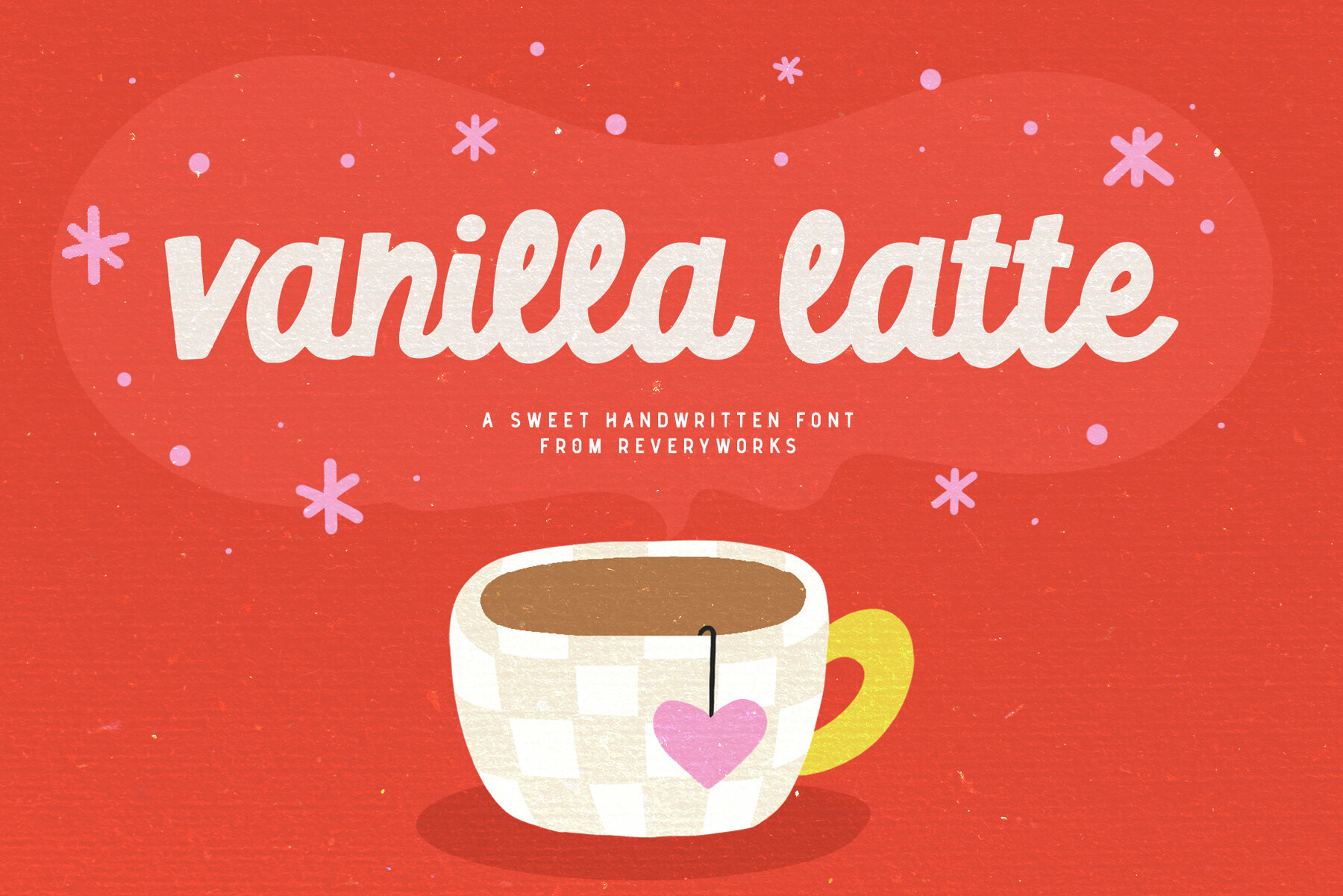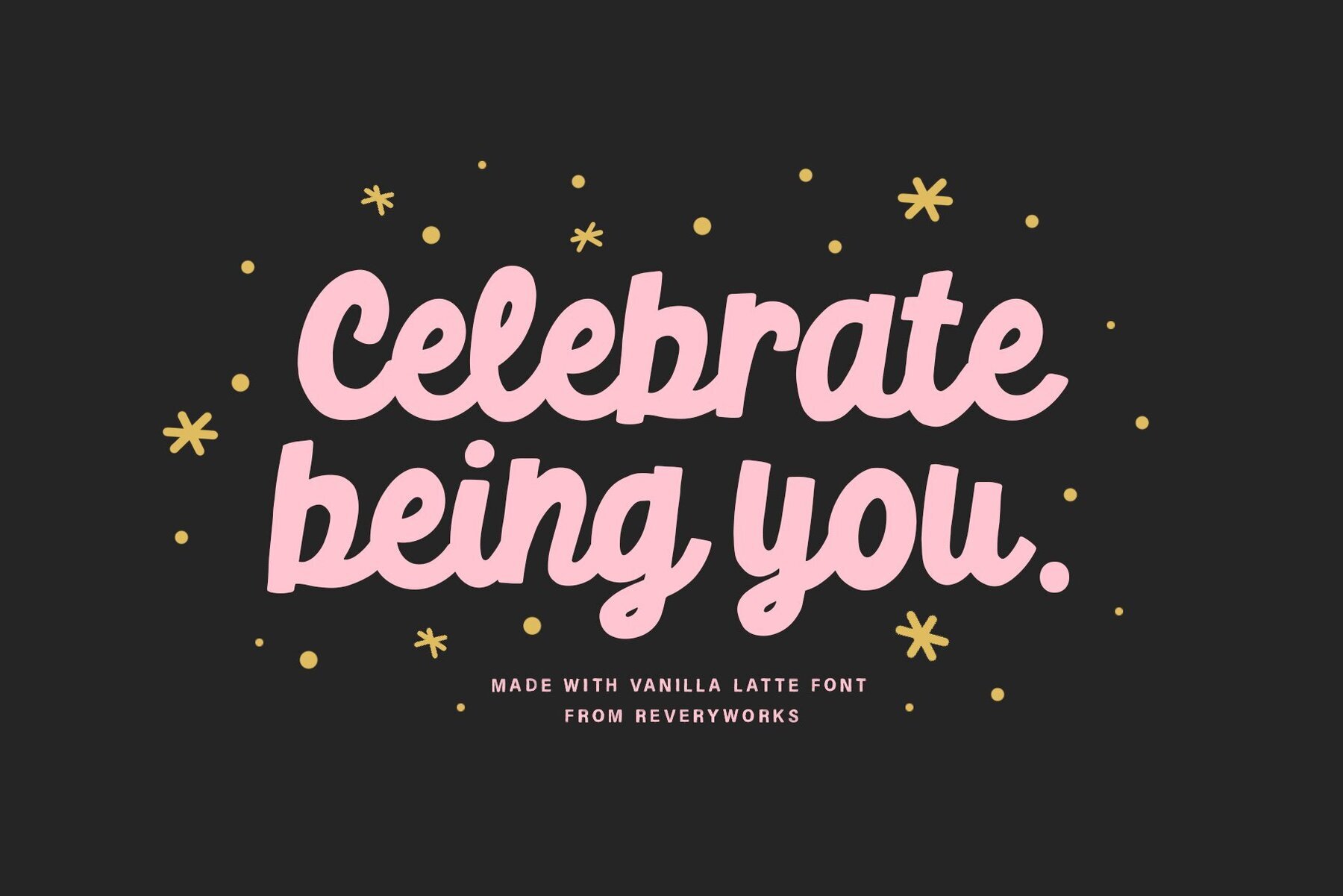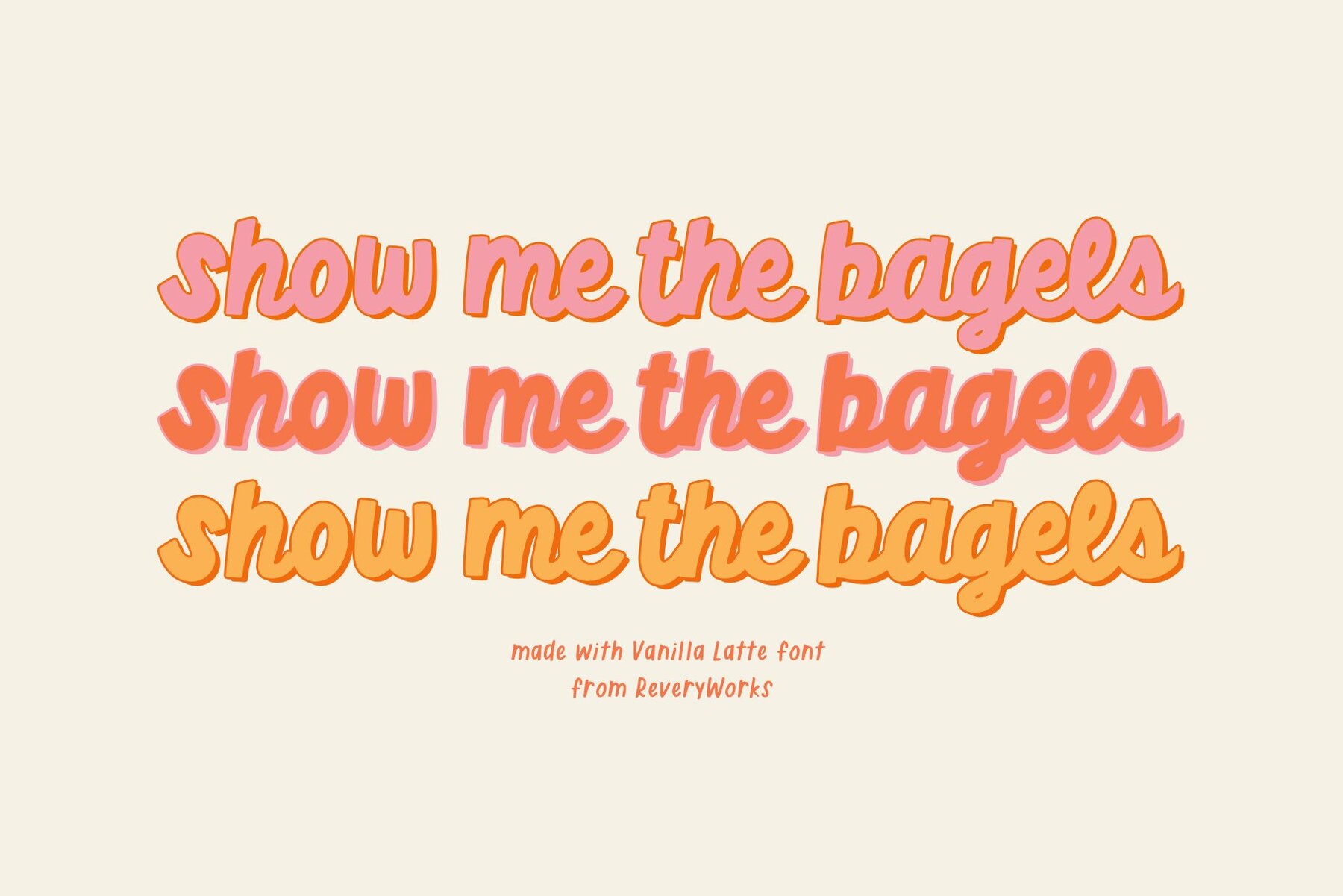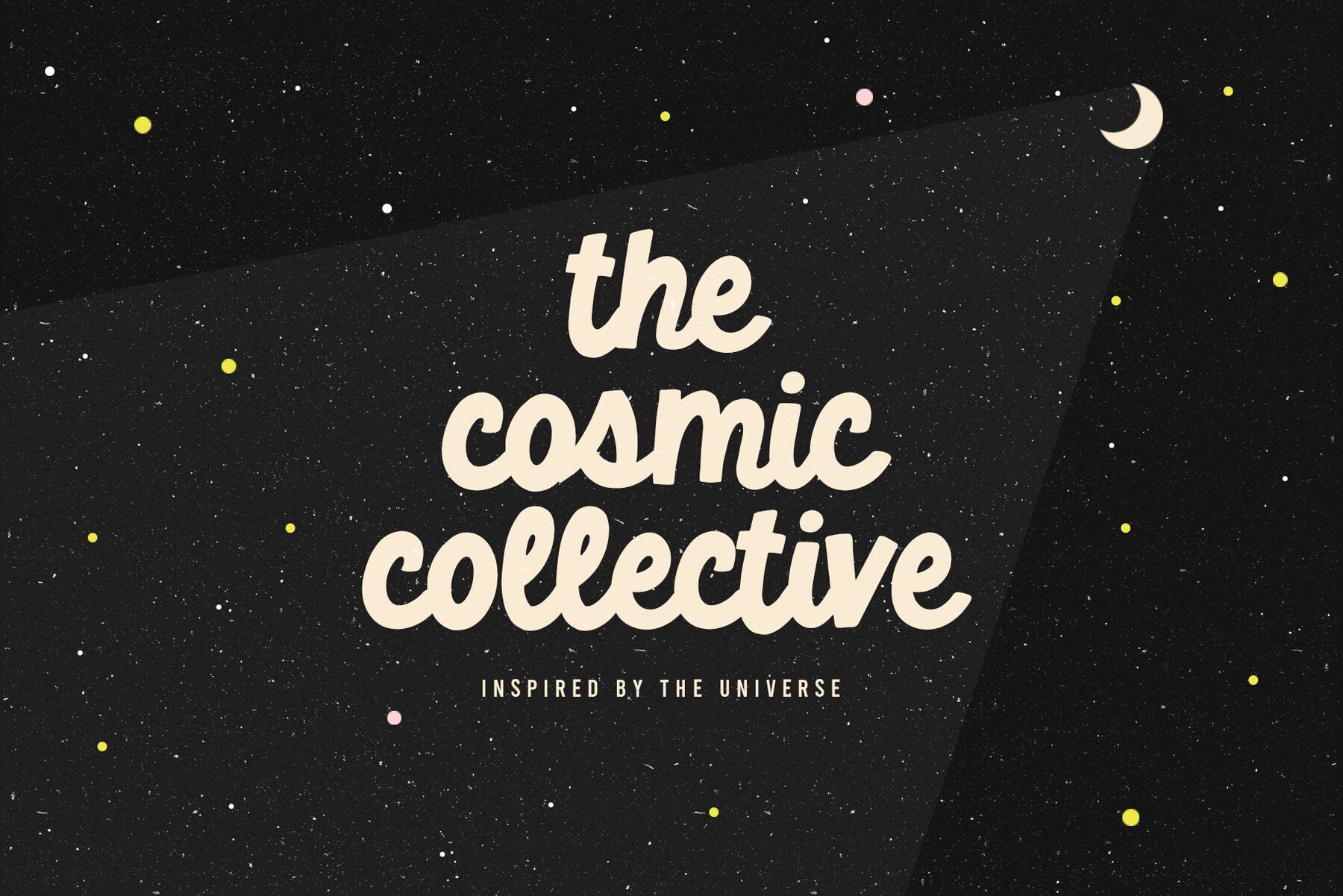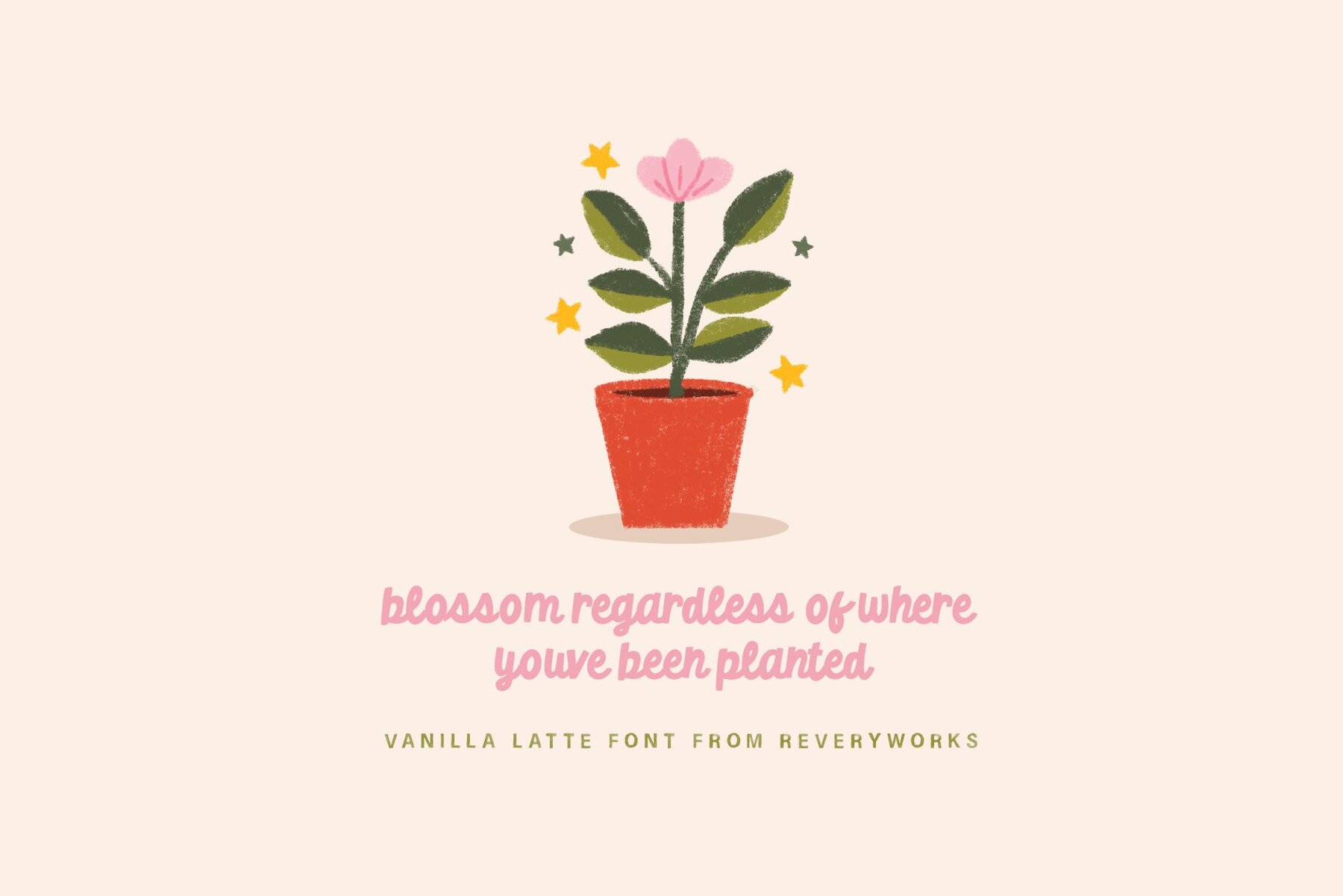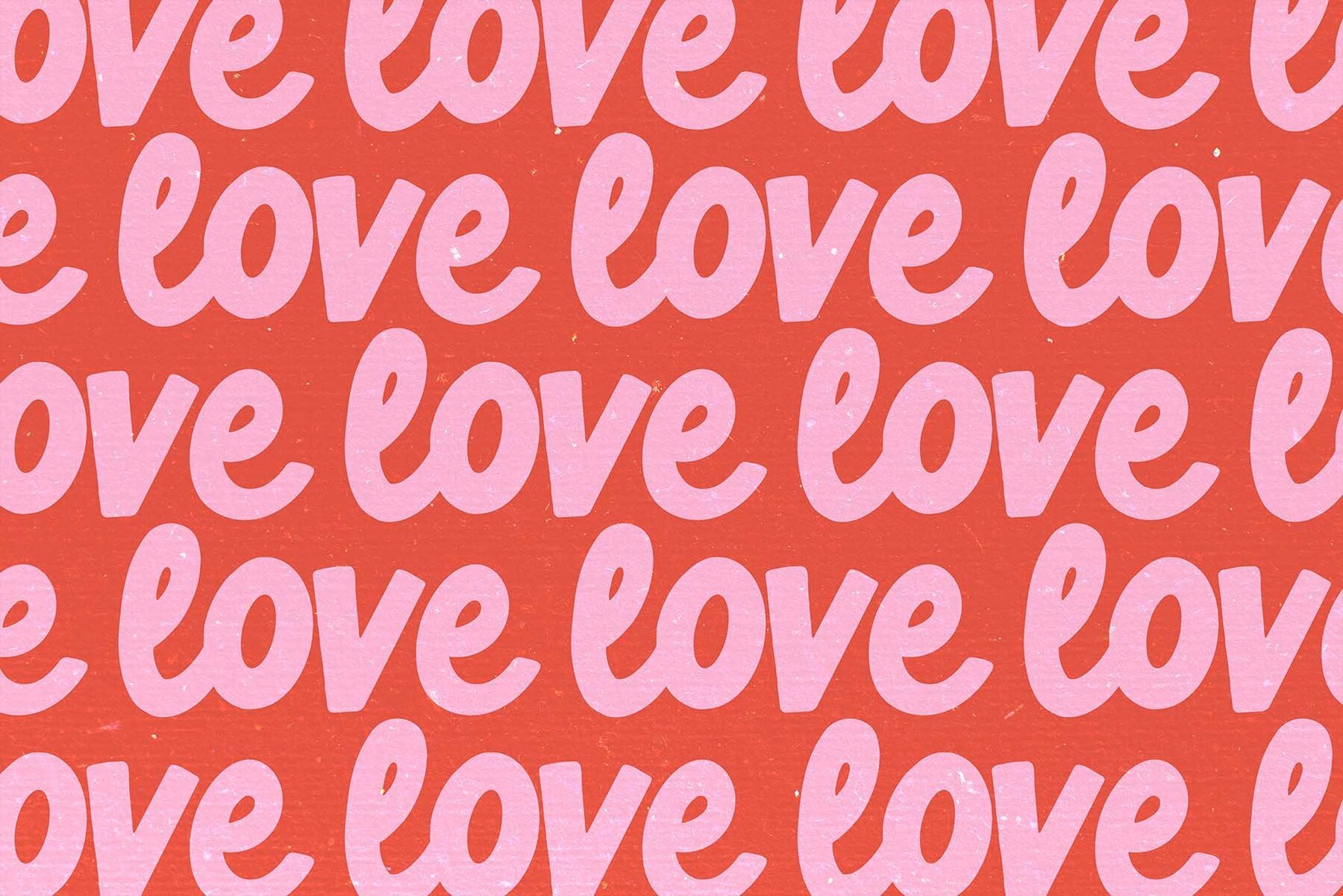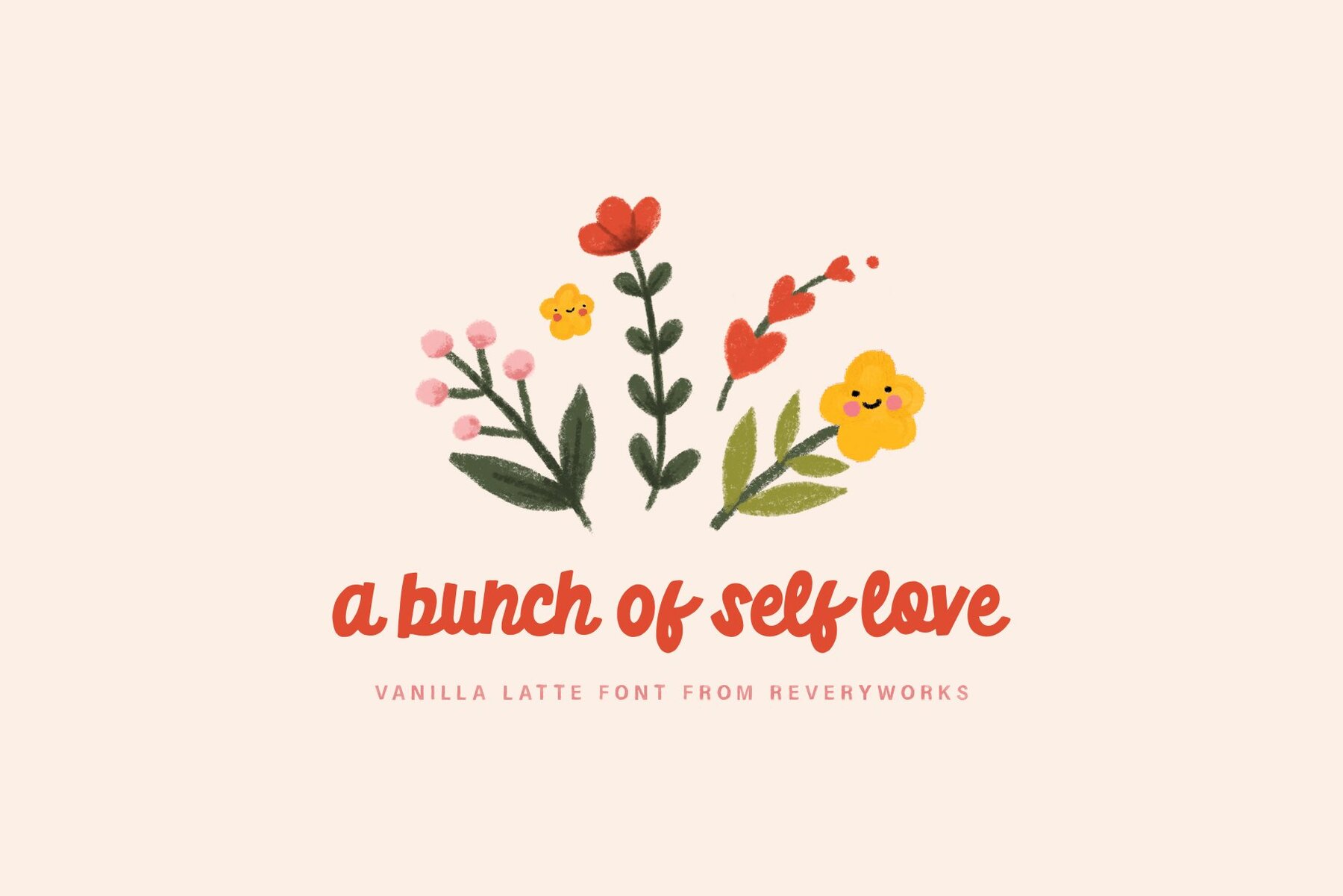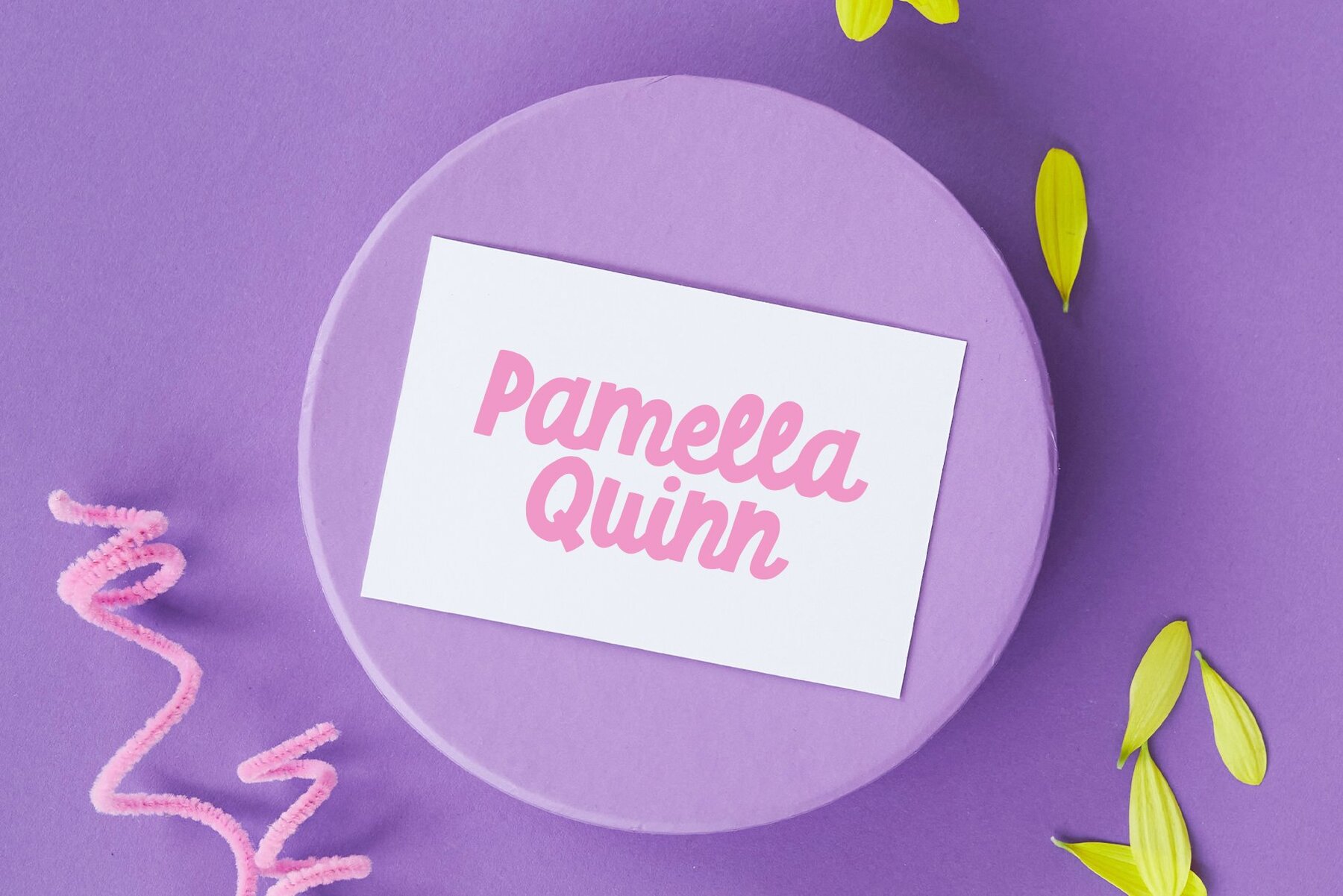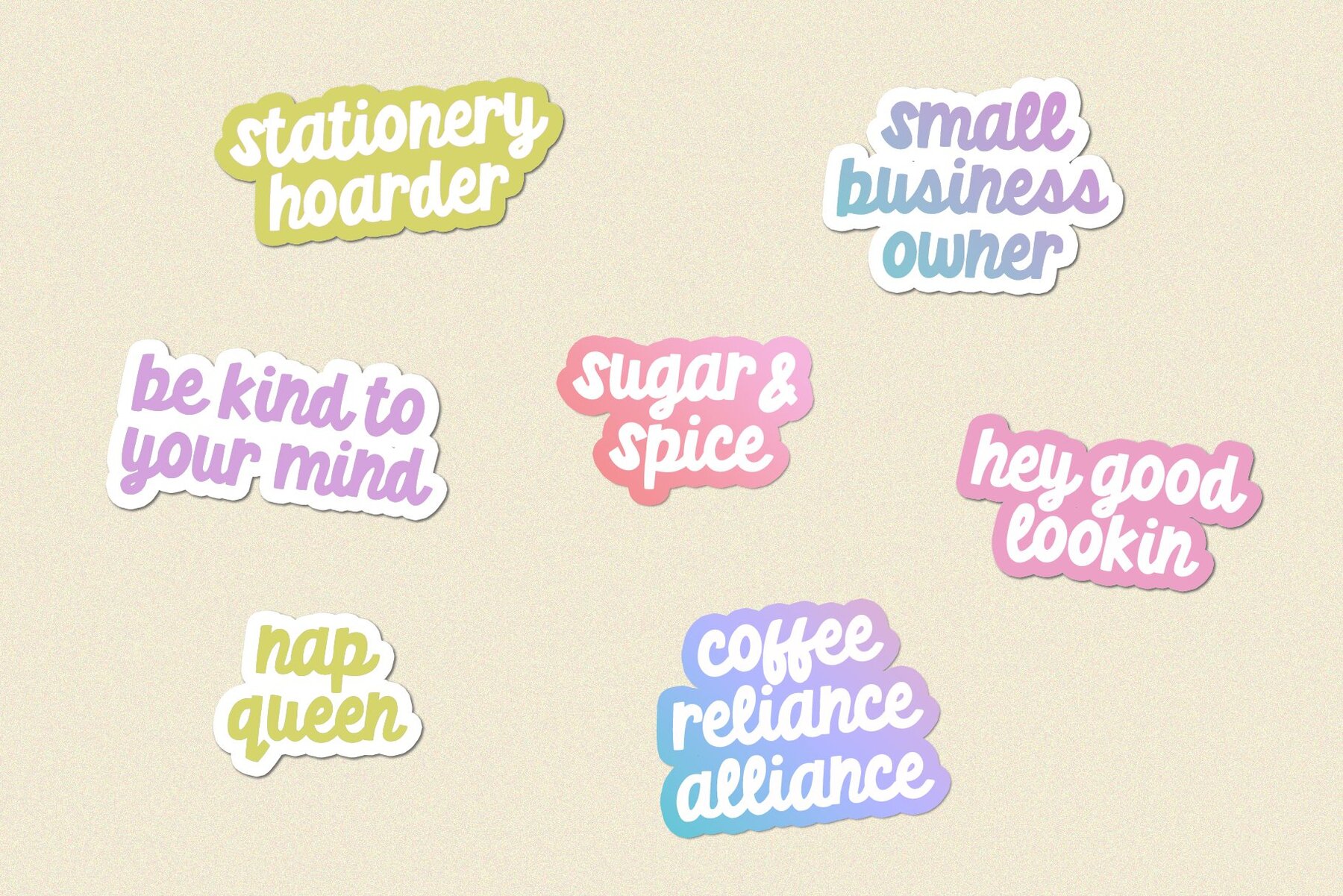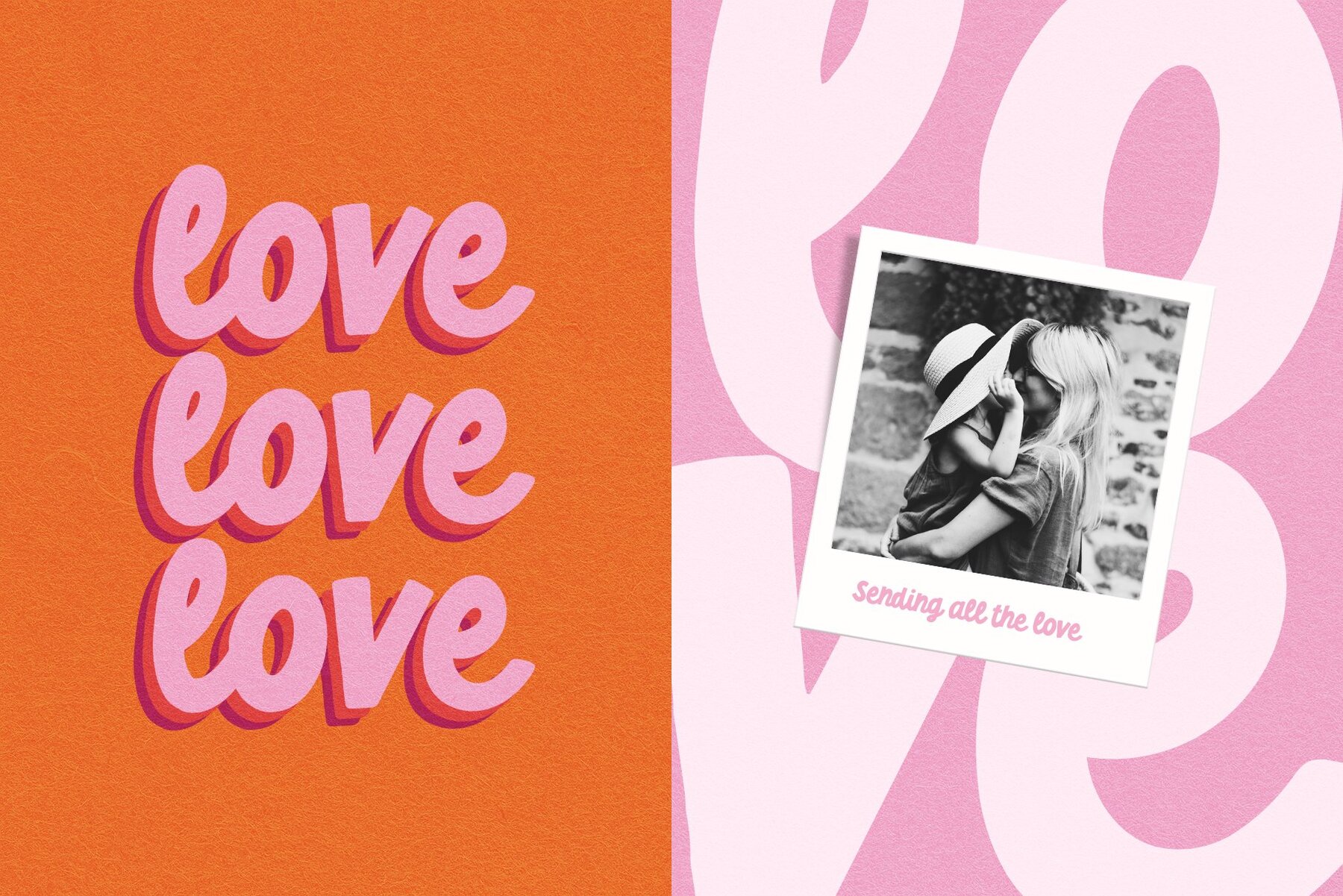
Vanilla Latte Font
Vanilla Latte Regular
Vanilla Latte is a delightful and fun connected script font designed to add joy and boldness to your creative projects. This font is ideal for crafting quotes, greeting cards, stickers, and bubbly logos, making it a great choice for small business branding. Experiment by layering the font for a dynamic 3D effect or enhance its appearance by outlining the text. Explore various trendy color combinations to bring your design to life. Vanilla Latte includes multilingual support, featuring characters such as á, â, à, ä, å, ã, æ, ç, é, ê, è, ë, í, î, ì, ï, ı, ñ, ó, ô, ò, ö, õ, ø, œ, š, ß, ú, û, ù, ü, ý, and ÿ, as well as their uppercase counterparts. Most importantly, enjoy the creative process! Maryam xVanilla Latte: Playful Connected Script Font
Creative Possibilities
Multilingual Support